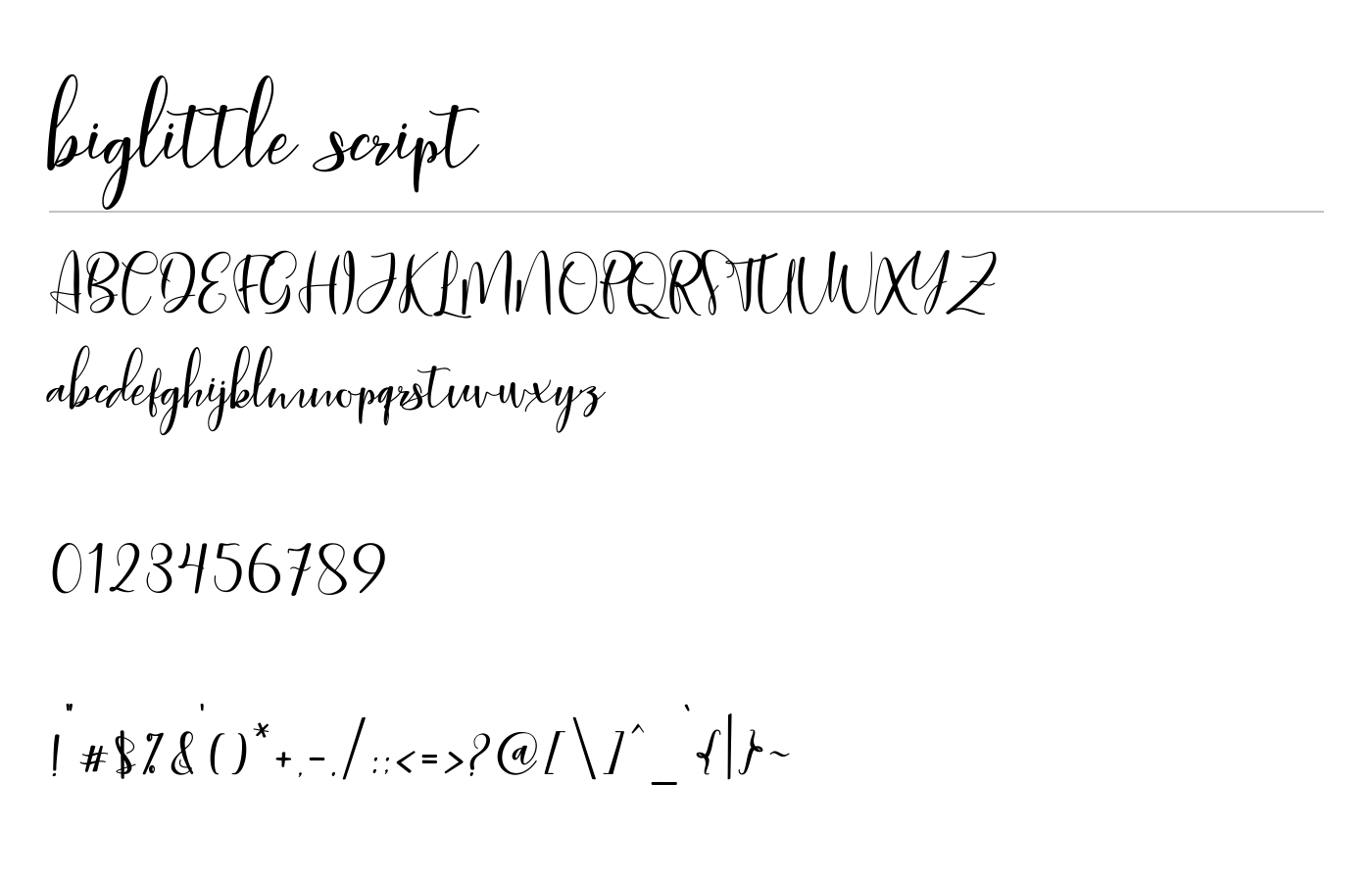
Biglittle Script is a delicate and elegant handwritten script font featuring slender, flowing strokes that mimic natural calligraphy. Its tall, narrow letterforms with graceful curves and smooth connections evoke a refined, personal touch ideal for invitations, branding, and feminine or romantic designs. This font works beautifully for logos, greeting cards, and editorial accents where a stylish and sophisticated handwritten feel is desired.
biglittle script Font
About biglittle script Font
| Font family | biglittle script Font |
| Designer | Fajriadi |